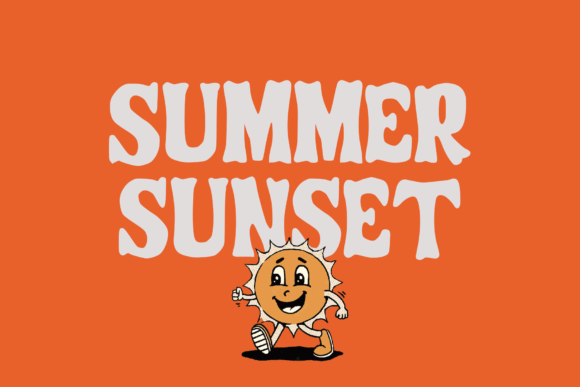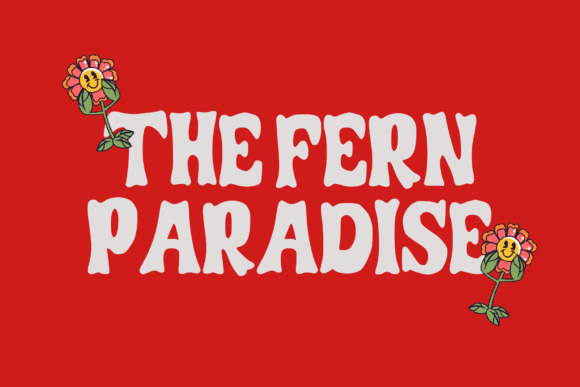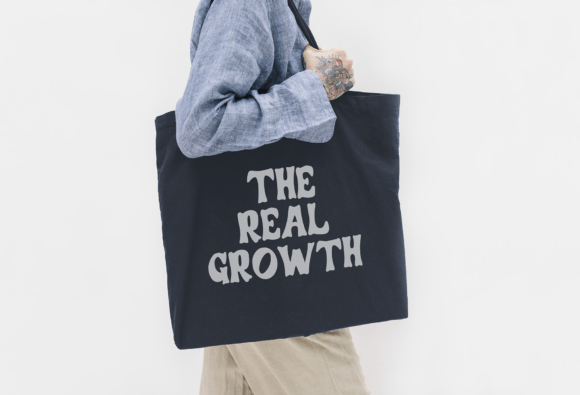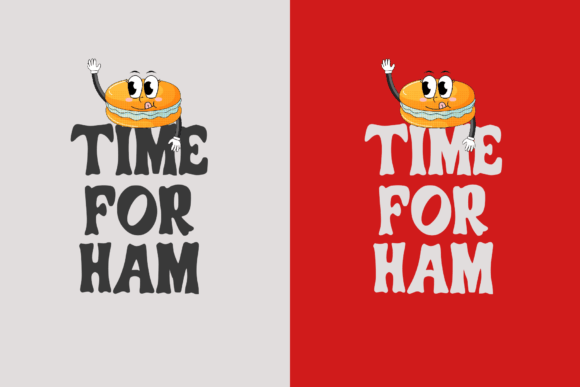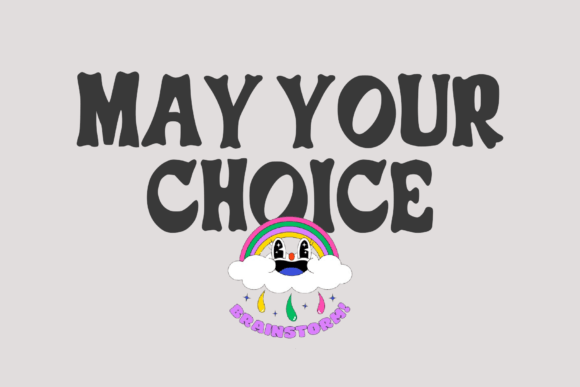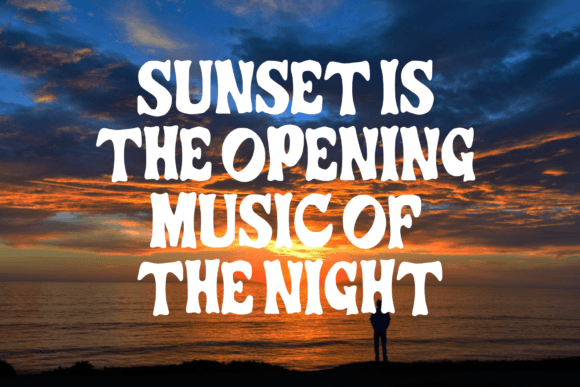
Introduction to Monaqe Font
Remember that moment when you stumbled upon the perfect font for your creative project? The one that made your design stand out and transport you to a bygone era? For designers, finding that elusive font can be a game-changer. And, if you’re anything like us, you’ll love discovering the Monaqe Font – a retro groovy display font that’s sure to become your new favorite go-to.
Whether you’re working on a digital design, crafting a handmade card, or preparing a presentation, the Monaqe Font has got you covered. Its unique style and high-quality design make it an invaluable resource for any creative project. Plus, with a transparent background, you can easily integrate it into your design without any distractions. The best part? You can download it for free, making it an accessible addition to your design arsenal.
- High-quality design resource ideal for creative projects, offering a unique and stylish look.
Honest Review: Monaqe Font
I recently came across the Monaqe Font, and I was excited to try it out for my next design project. After using it, I must say it’s a great addition to my design resource library.
- What works well: ✨ The font is incredibly versatile and comes in a range of weights, making it perfect for various creative projects. The transparent background feature is also a huge plus, allowing for seamless integration with my designs.
- What works well: ✨ The font is highly legible, even at smaller font sizes, making it ideal for body text and titles.
- ⚠️ The font may not be suitable for projects requiring very large or bold font sizes, as it can become distorted.
Overall, I’m impressed with the Monaqe Font. Its high quality and versatility make it a valuable asset for any designer. While it may have some limitations, it’s a great addition to my design resource library, and I would definitely recommend it for any creative project.
The Monaqe Font is ideal for a variety of creative projects, including graphic design, digital art, and typography. It’s also useful for creating social media graphics, blog posts, and other online content.
Compared to Monaqe Font, Great Vibes Font has a more refined and delicate appearance, making it suitable for projects where a subtle, artistic touch is required. While Monaqe Font has a more playful and quirky feel, Great Vibes Font is better suited for projects demanding a sense of refinement and poise.